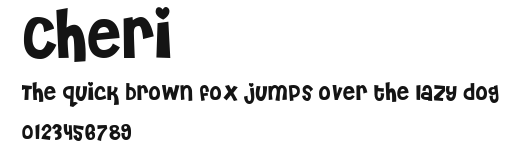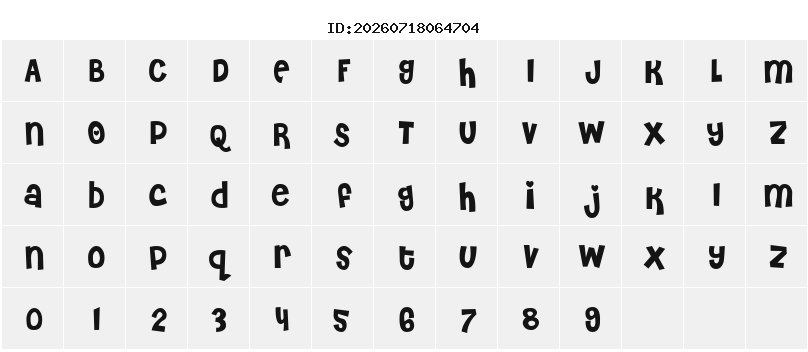
• Font Name: Cheri
• Full Font Name: Cheri
About Cheri.ttf
Cheri.ttf is a modern, elegant sans-serif font designed for ultimate readability and visual harmony. Perfect for branding, headlines, web design, and print materials.